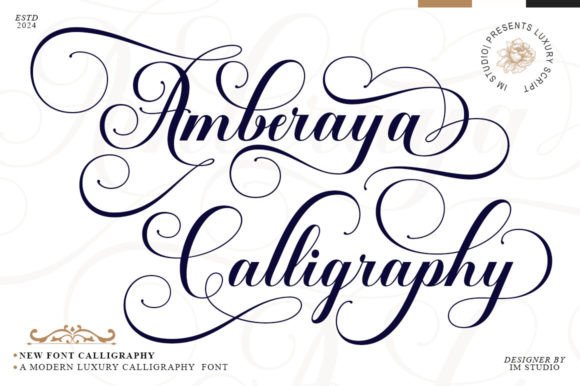
Amberaya Calligraphy Font: Elevate Your Designs with Elegance and Timelessness
Are you looking for a font that can add a touch of sophistication and refinement to your designs? Look no further than the Amberaya Calligraphy Font. This beautiful font is characterized by its delicate, elegant, and timeless features, making it an excellent choice for a wide range of design projects. In this article, we’ll explore the unique qualities of the Amberaya Calligraphy Font and how it can elevate your designs to new heights.
Delicate, Elegant, and Timeless Design
The Amberaya Calligraphy Font is a masterpiece of typographic design. Its delicate and elegant features make it perfect for designs that require a touch of sophistication. The font’s timeless quality ensures that it will remain relevant for years to come, making it a valuable addition to your design arsenal.
One of the standout features of the Amberaya Calligraphy Font is its beautiful and well-balanced characters. Each letter is carefully crafted to ensure that it is visually appealing and harmonious with the other characters. This balance is essential for creating designs that are aesthetically pleasing and easy to read.
A Wide Range of Design Possibilities
The Amberaya Calligraphy Font is incredibly versatile and can be used in a wide range of design projects. Whether you’re creating a wedding invitation, a logo, or a website, this font is sure to make your design stand out. Its elegance and sophistication make it perfect for:
- Wedding invitations and stationery
- Logos and branding materials
- Websites and digital marketing materials
- Print materials, such as brochures and flyers
- Packaging and product design
Tips for Using the Amberaya Calligraphy Font
To get the most out of the Amberaya Calligraphy Font, here are a few tips to keep in mind:
- Use it sparingly: While the Amberaya Calligraphy Font is beautiful, it’s best used sparingly. Use it for headings or titles, and pair it with a simpler font for body text.
- Pair it with complementary fonts: Experiment with pairing the Amberaya Calligraphy Font with other fonts to create a unique and harmonious design.
- Adjust the size and color: Play around with different sizes and colors to create visual interest and hierarchy in your design.
The Benefits of Using the Amberaya Calligraphy Font
There are many benefits to using the Amberaya Calligraphy Font in your designs. Some of the most significant advantages include:
- Elegance and sophistication: The Amberaya Calligraphy Font adds a touch of elegance and sophistication to any design.
- Timelessness: The font’s timeless quality ensures that your design will remain relevant for years to come.
- Versatility: The Amberaya Calligraphy Font can be used in a wide range of design projects, from wedding invitations to logos and websites.
- Unique and creative: The font’s unique and creative design makes it perfect for designers who want to stand out from the crowd.
In conclusion, the Amberaya Calligraphy Font is a beautiful and elegant font that can add a touch of sophistication and refinement to any design. Its delicate and timeless features make it perfect for a wide range of design projects, from wedding invitations to logos and websites. With its versatility, unique design, and many benefits, the Amberaya Calligraphy Font is an excellent choice for designers who want to create stunning and effective designs.